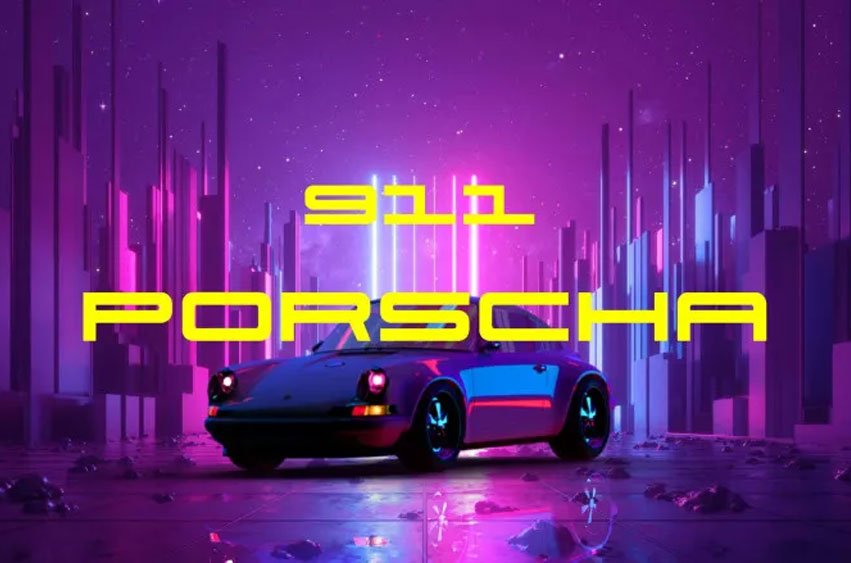
911 Porscha Font The free techno font 911 Porscha Font exists within Iconian Fonts’ portfolio as an exceptional design by this font creator.
The basic variation of this font offers uppercase letters together with some unique symbols.